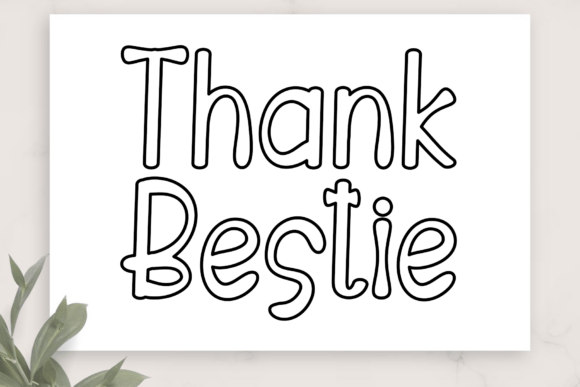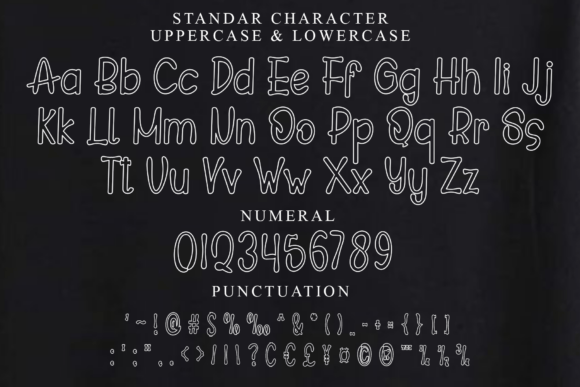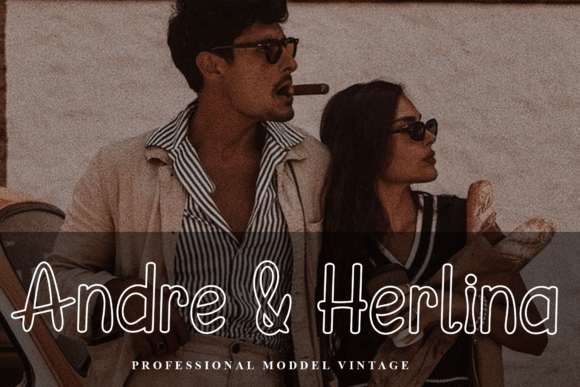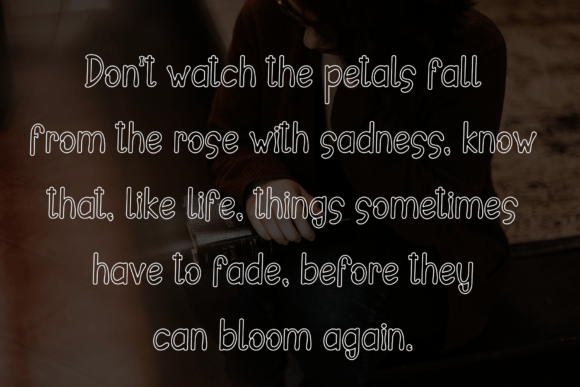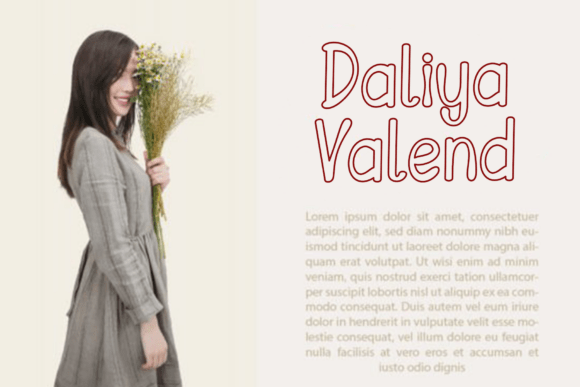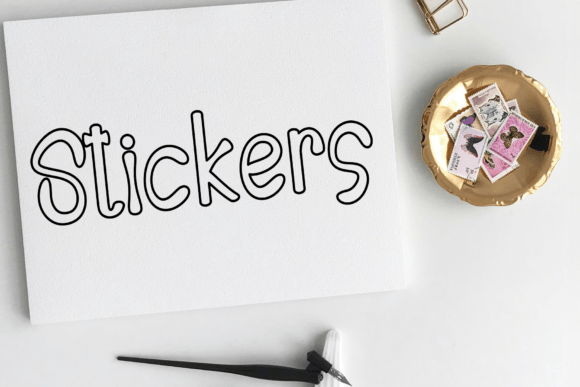
Dream Doodle Font: Add a Touch of Whimsy to Your Designs
Are you looking for a font that can add a personal touch to your designs? Look no further than the Dream Doodle Font. This casual and creative font is perfect for designers and crafters who want to infuse their work with warmth and friendliness. In this article, we’ll explore the features and benefits of the Dream Doodle Font and how it can elevate your designs.
The Charm of Dream Doodle Font
Dream Doodle Font is a hand-drawn font that boasts round, playful strokes, creating a relaxed and approachable feel. Its charming aesthetic is perfect for personal projects, invitations, social media graphics, and any design that requires a friendly and informal touch. The font’s unique, hand-drawn look adds a fun and distinctive element to any design, making it stand out from more traditional fonts.
Key Features of Dream Doodle Font
• Casual and Creative: Dream Doodle Font is designed to be casual and creative, making it perfect for designers who want to add a personal touch to their work.
• Warm and Friendly: The font’s round, playful strokes create a warm and friendly feel, perfect for designs that require a approachable and inviting aesthetic.
• Hand-Drawn Aesthetic: The font’s hand-drawn look adds a unique and distinctive element to any design, making it perfect for designers who want to add a personal touch to their work.
Use Cases for Dream Doodle Font
Dream Doodle Font is versatile and can be used in a variety of design projects, including:
• Personal Projects: Use Dream Doodle Font to add a personal touch to your personal projects, such as photo albums, scrapbooking, and journaling.
• Invitations: The font’s friendly and approachable aesthetic makes it perfect for invitations, such as birthday parties, baby showers, and weddings.
• Social Media Graphics: Use Dream Doodle Font to create engaging and eye-catching social media graphics, such as quotes, posters, and flyers.
• Crafting Projects: The font is also perfect for crafters who want to add a personal touch to their projects, such as handmade cards, gift tags, and DIY decorations.
Tips for Using Dream Doodle Font
Here are some tips for using Dream Doodle Font in your designs:
• Experiment with Colors: The font’s playful aesthetic lends itself well to bright and bold colors. Experiment with different color combinations to add a pop of color to your designs.
• Mix and Match: Don’t be afraid to mix and match Dream Doodle Font with other fonts to create a unique and interesting look.
• Use it for Headings: The font’s bold and playful aesthetic makes it perfect for headings and titles. Use it to add a touch of whimsy to your designs.
Dream Doodle Font is a versatile and charming font that can add a personal touch to any design. Its casual and creative aesthetic makes it perfect for designers and crafters who want to infuse their work with warmth and friendliness. With its PUA Encoded glyphs and compatibility with various application engines, Dream Doodle Font is a great addition to any design toolkit. So why not give it a try and see how it can elevate your designs?